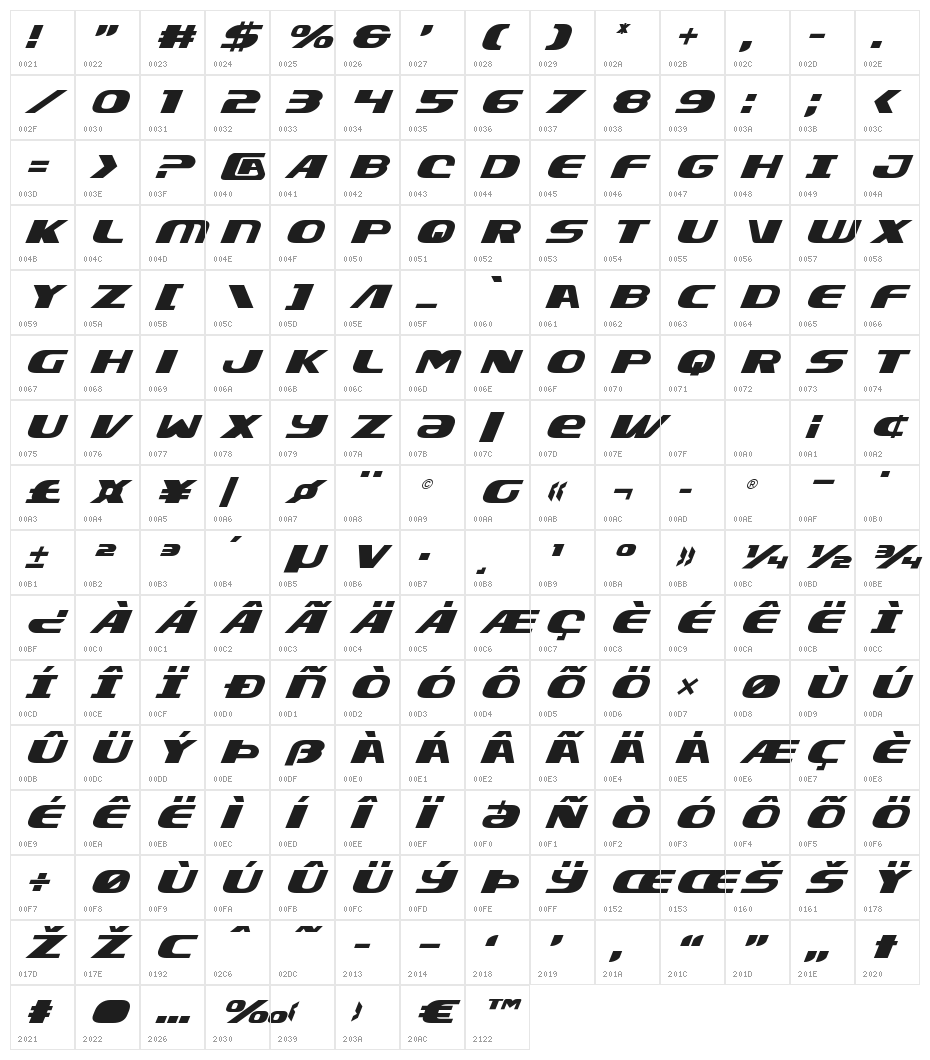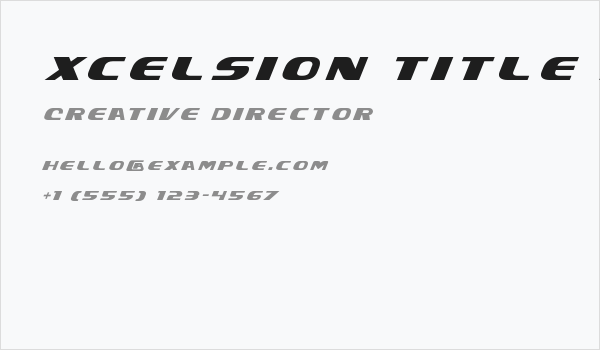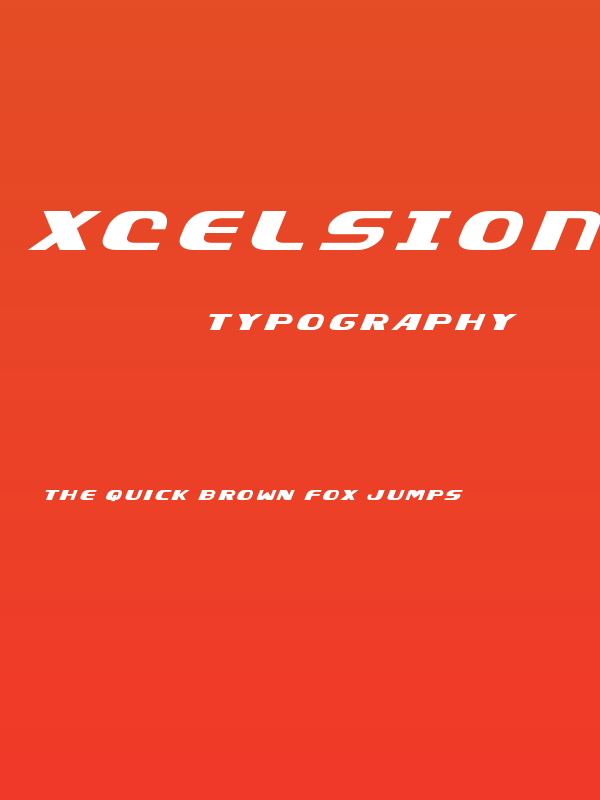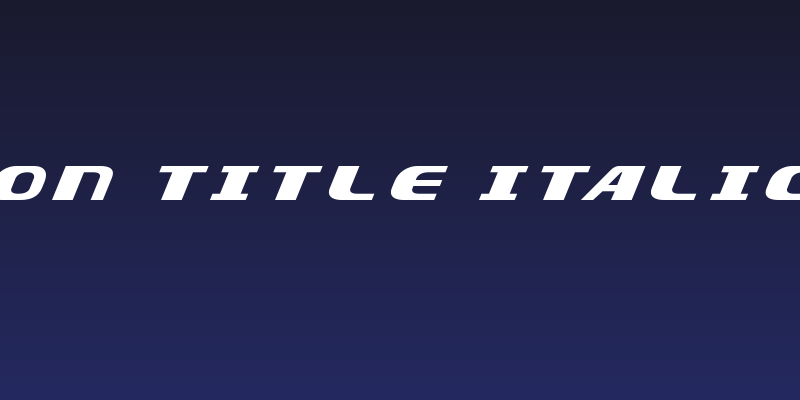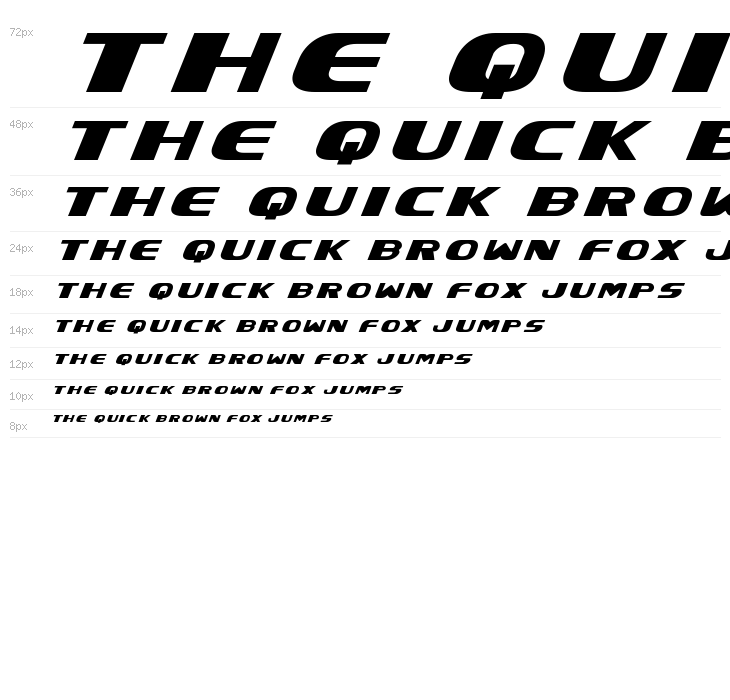
Xcelsion Title Italic Italic Font
Xcelsion Title Italic Italic Description
This font features a dynamic and modern italic style with a forward-leaning slant, giving it a sense of motion and energy. The characters are bold and have a strong presence, making them suitable for impactful designs. The strokes are consistent in thickness, providing a uniform appearance across all characters. The uppercase and lowercase letters are well-proportioned, and the numerals are clear and easy to read. Special characters are included, maintaining the same stylistic approach. The overall design is sleek and contemporary, ideal for projects that require a bold statement.
Proposed ProjectsIdeal for sports branding, automotive designs, dynamic posters, and modern advertising campaigns.